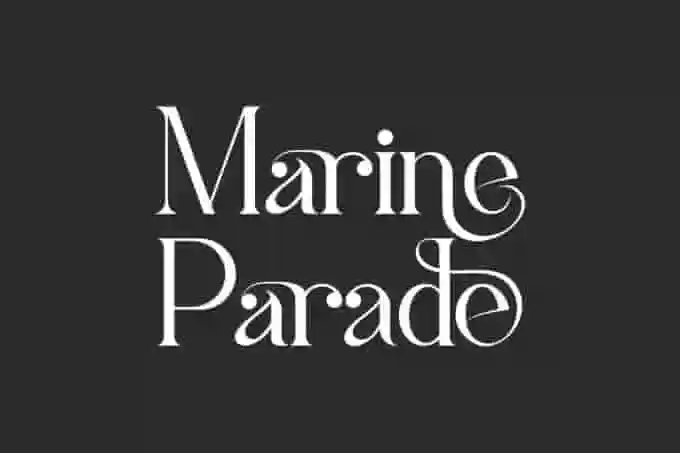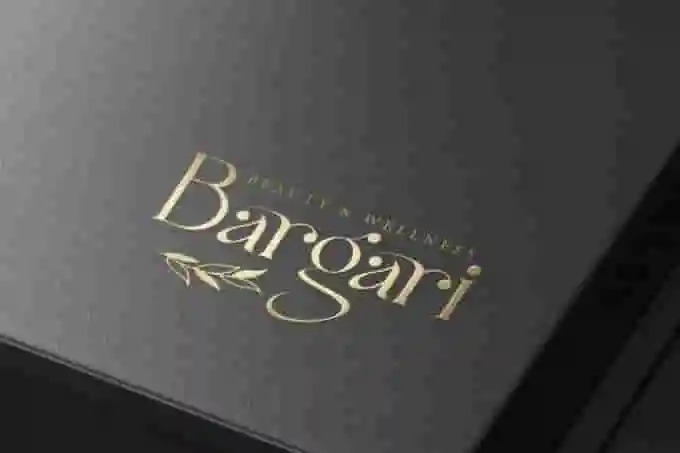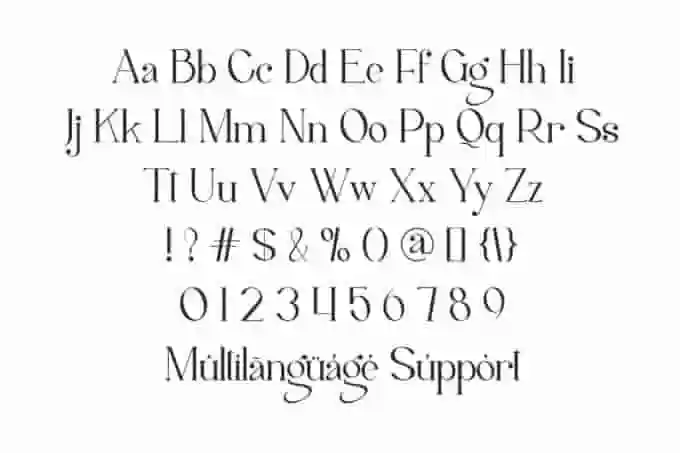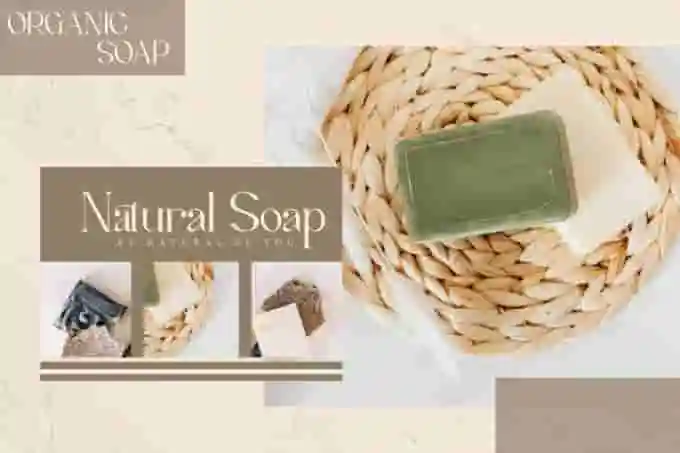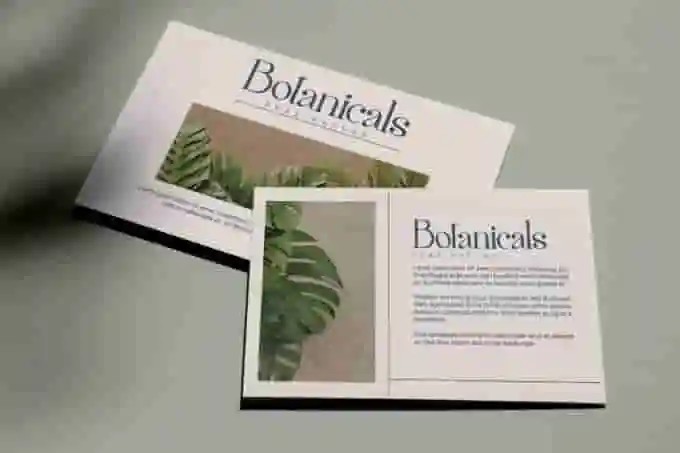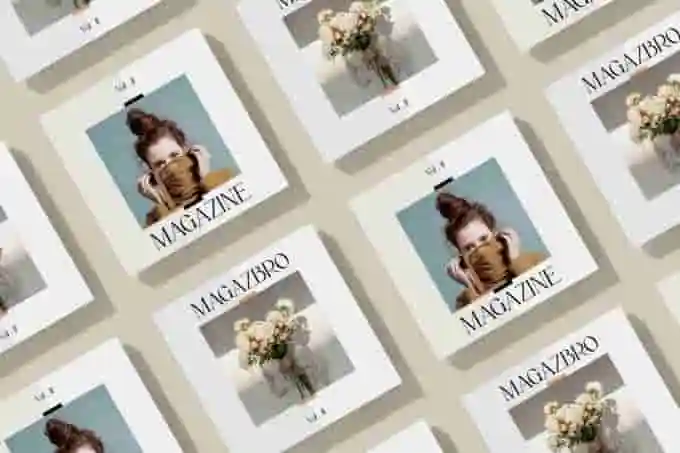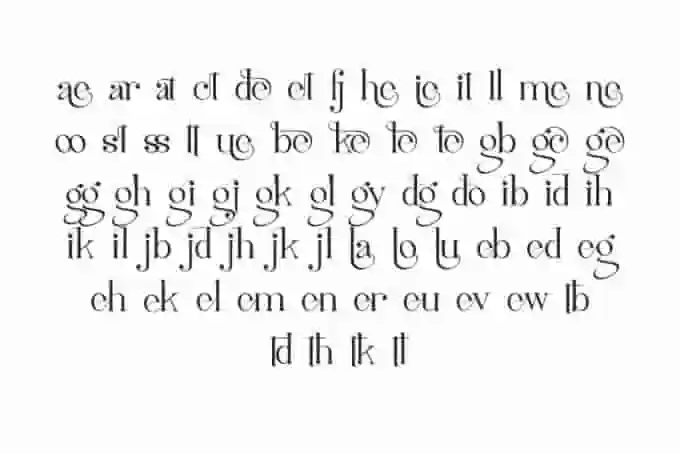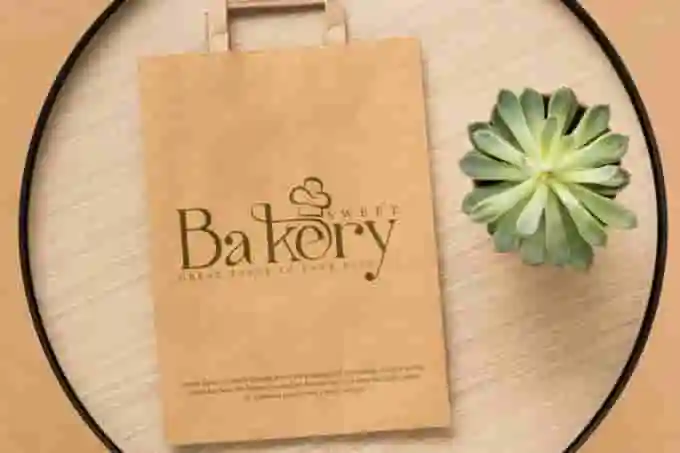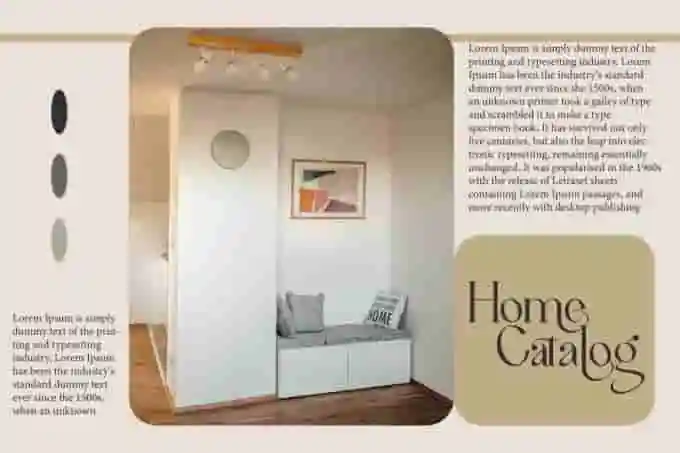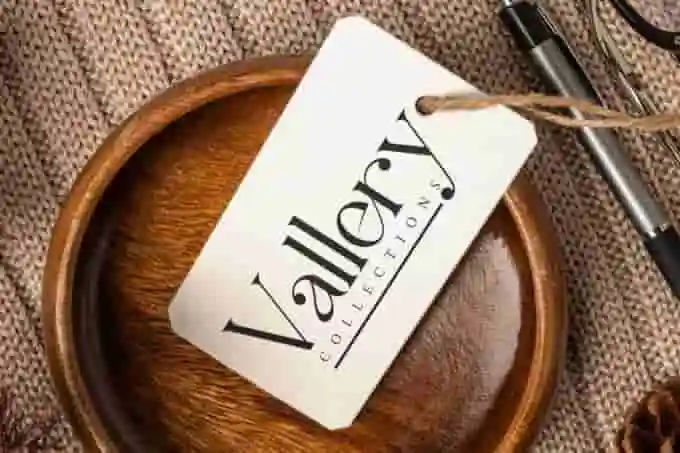
Make Bold Statements with Marine Parade Sans & Serif – A Versatile Display Font
Looking for a display font that combines modern edge with timeless style? Marine Parade Sans & Serif is a powerful typeface duo crafted to make your designs stand out—whether you’re designing a bold headline, brand identity, or product packaging.
Marine Parade Font is an elegant serif display font. This font deliver luxury and modern feels to make your project perfect. Carefully crafted to have an elegant look on every line and easy to read. This one should make your design instantly professional and stunning!
Marine Parade Font includes full set of Uppercase and Lowercase Basic Characters, Numerals and Punctuation, and ligature. This font will be suitable for many industries such as apparel, bakery and pastry, cosmetic, fashion, florist, café, homeware, jewelry, photography, publishing, printing, restaurant, wedding, writers, and many more.
This font will be perfect for projects that require a sleek elegant look, like product packaging, blog header, brand logo, brochure, business card, catalog, cover, label, invitation, poster, signage, etc. Be a perfect professional in a minute and start creating today!